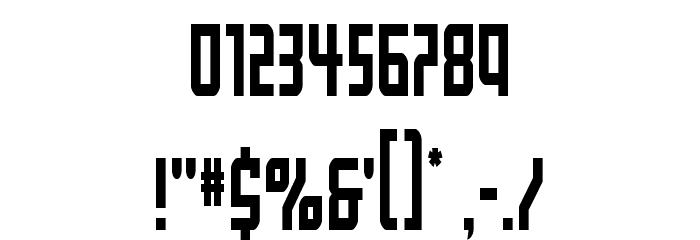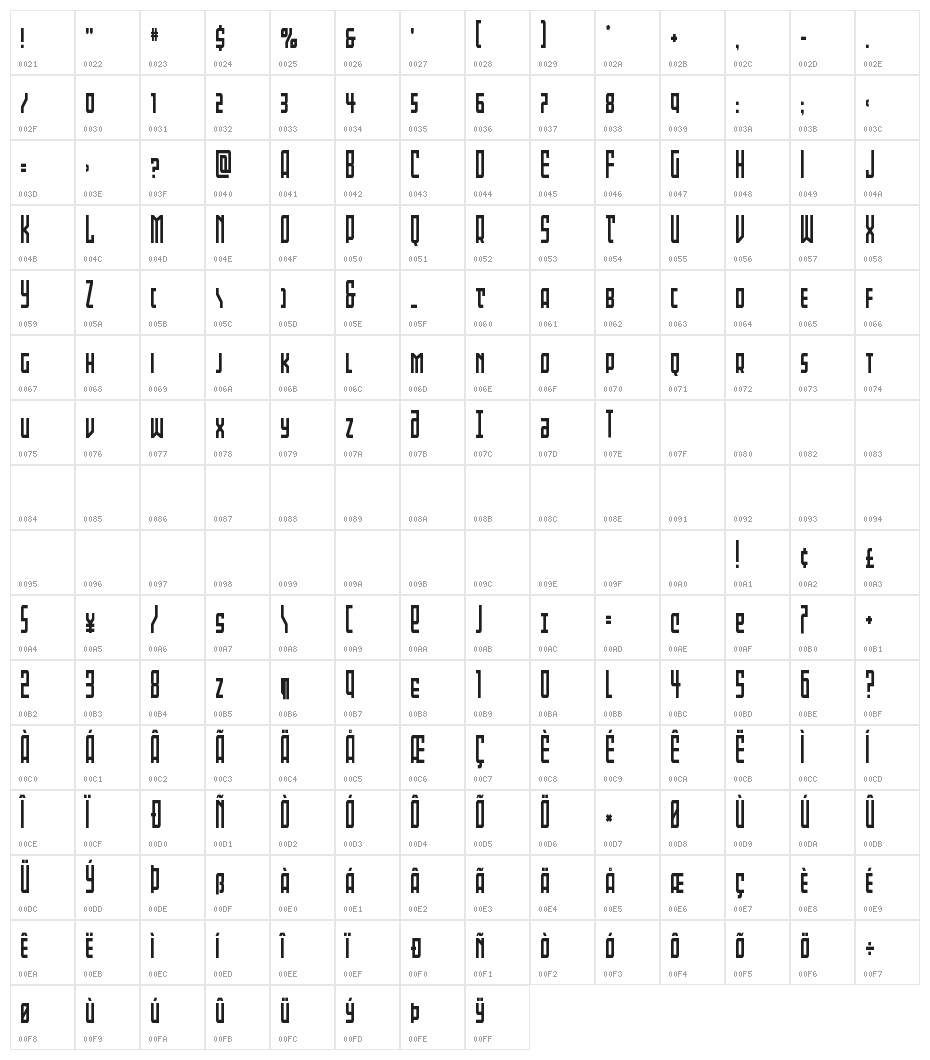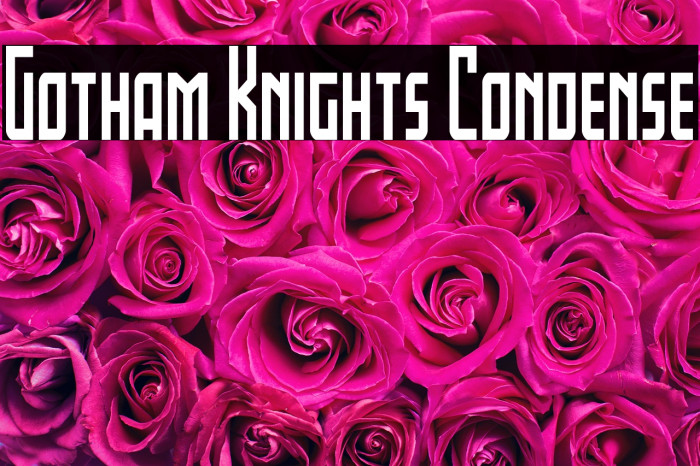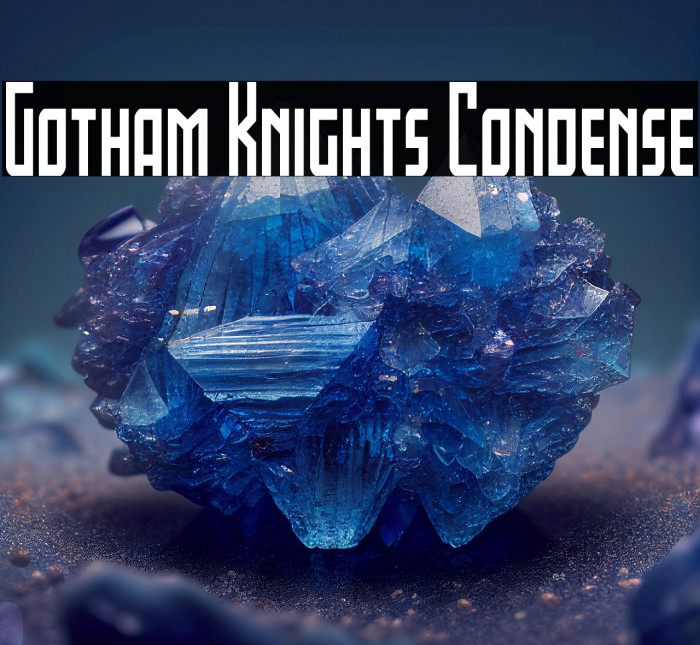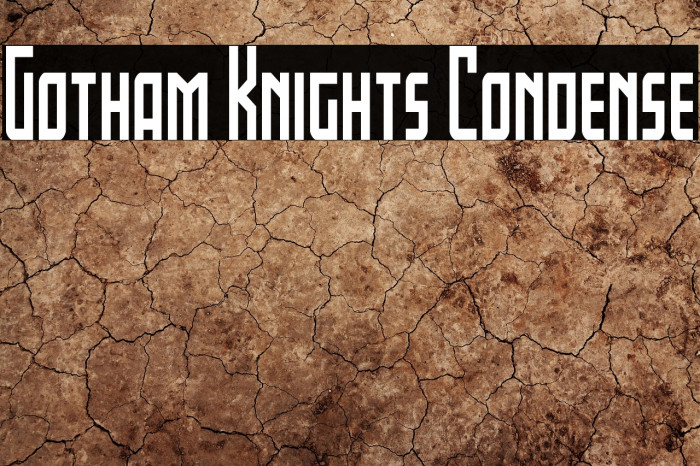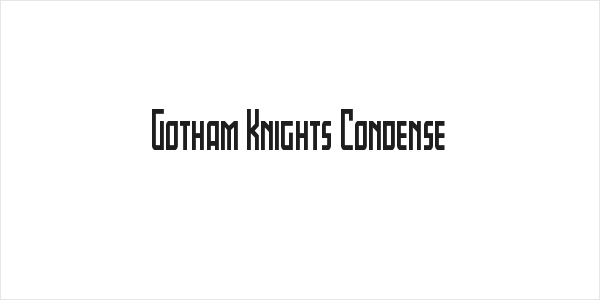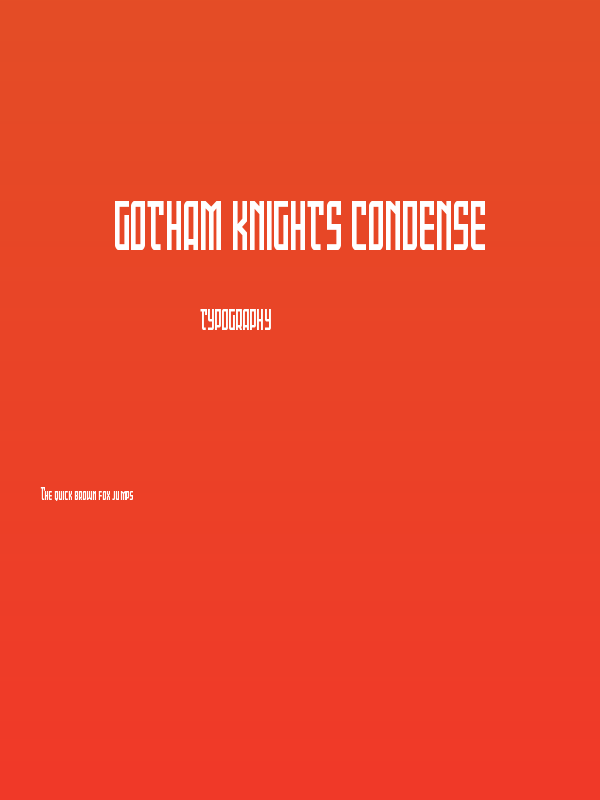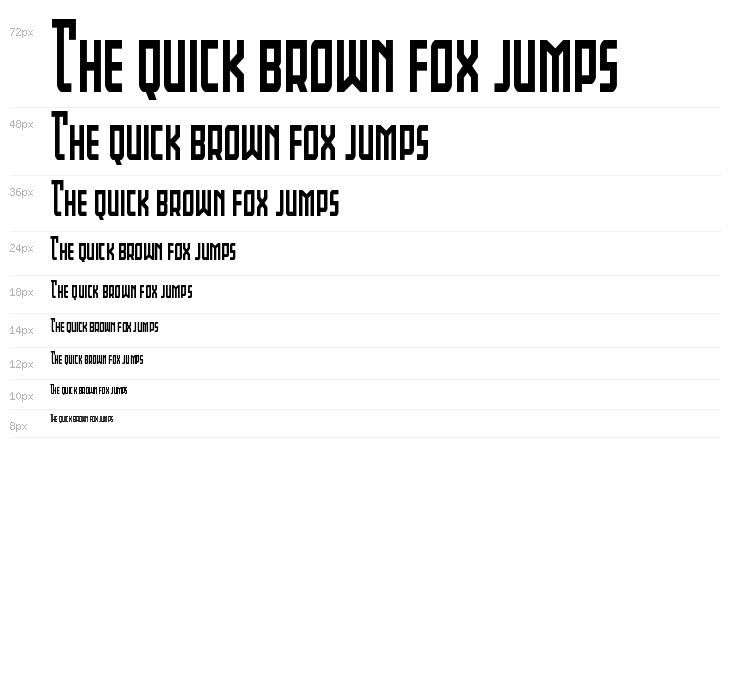
Gotham Knights Condense Font
Gotham Knights Condense Description
This font features a bold, geometric design with a condensed structure, giving it a strong and impactful presence. The characters are uniformly styled with sharp angles and clean lines, creating a modern and futuristic appearance. The uppercase and lowercase letters maintain a consistent height, enhancing the uniformity and readability of the text. The numerals and special characters follow the same design principles, ensuring a cohesive look across all elements. This font is ideal for projects that require a bold statement, such as branding, posters, or digital media.
| Proposed Projects | Ideal for branding, posters, digital media, and any project needing a strong visual impact. |